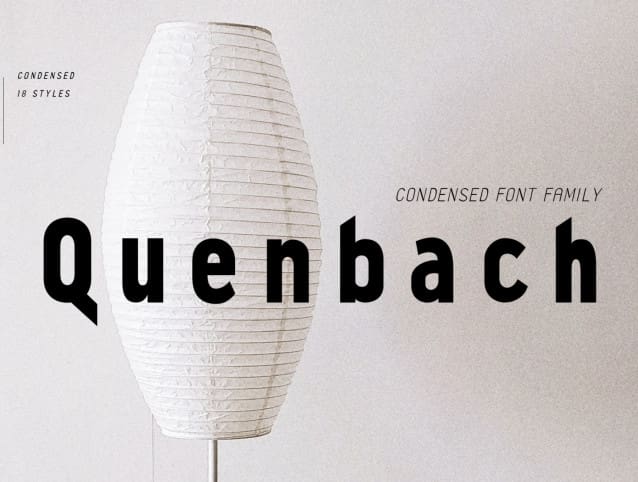
Quenbach Font
Quenbach Font – Condensed Font Family is a classy font family that includes 18 awesome styles. Especially, this Font family has elaborated the Kerning Process to be useful in Editorial Design. It also supports Cyrillic Basic Charset and OpenType Features including Small Caps.